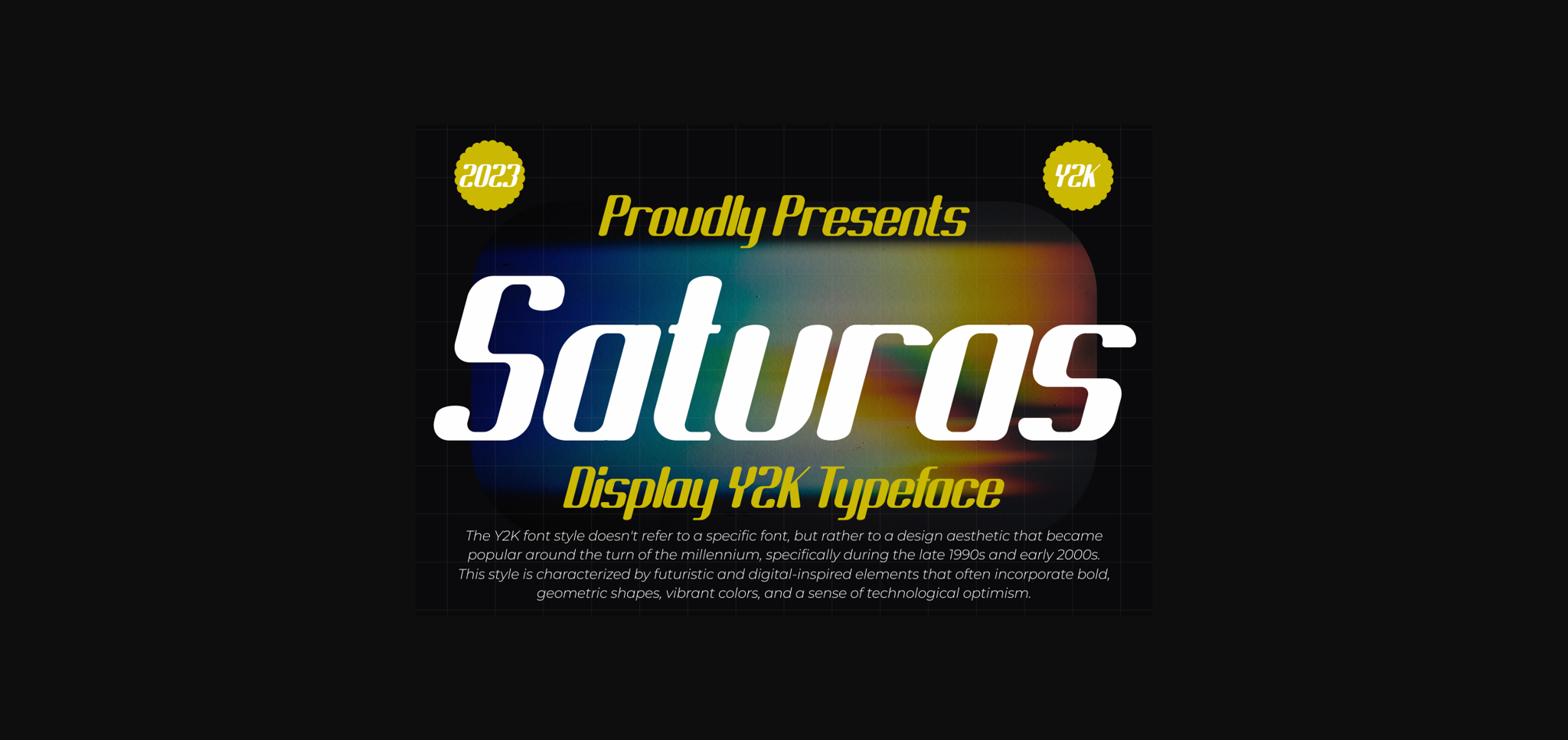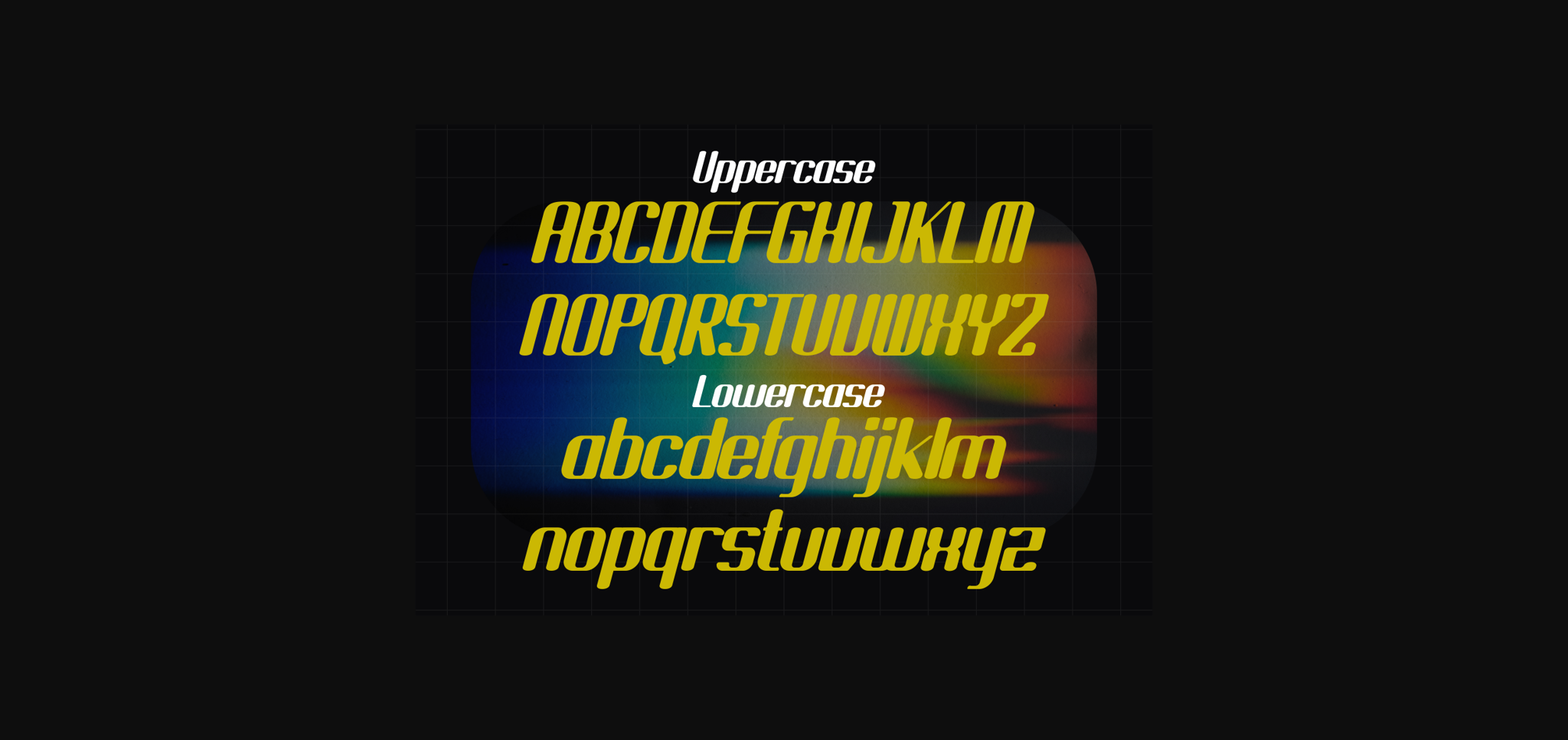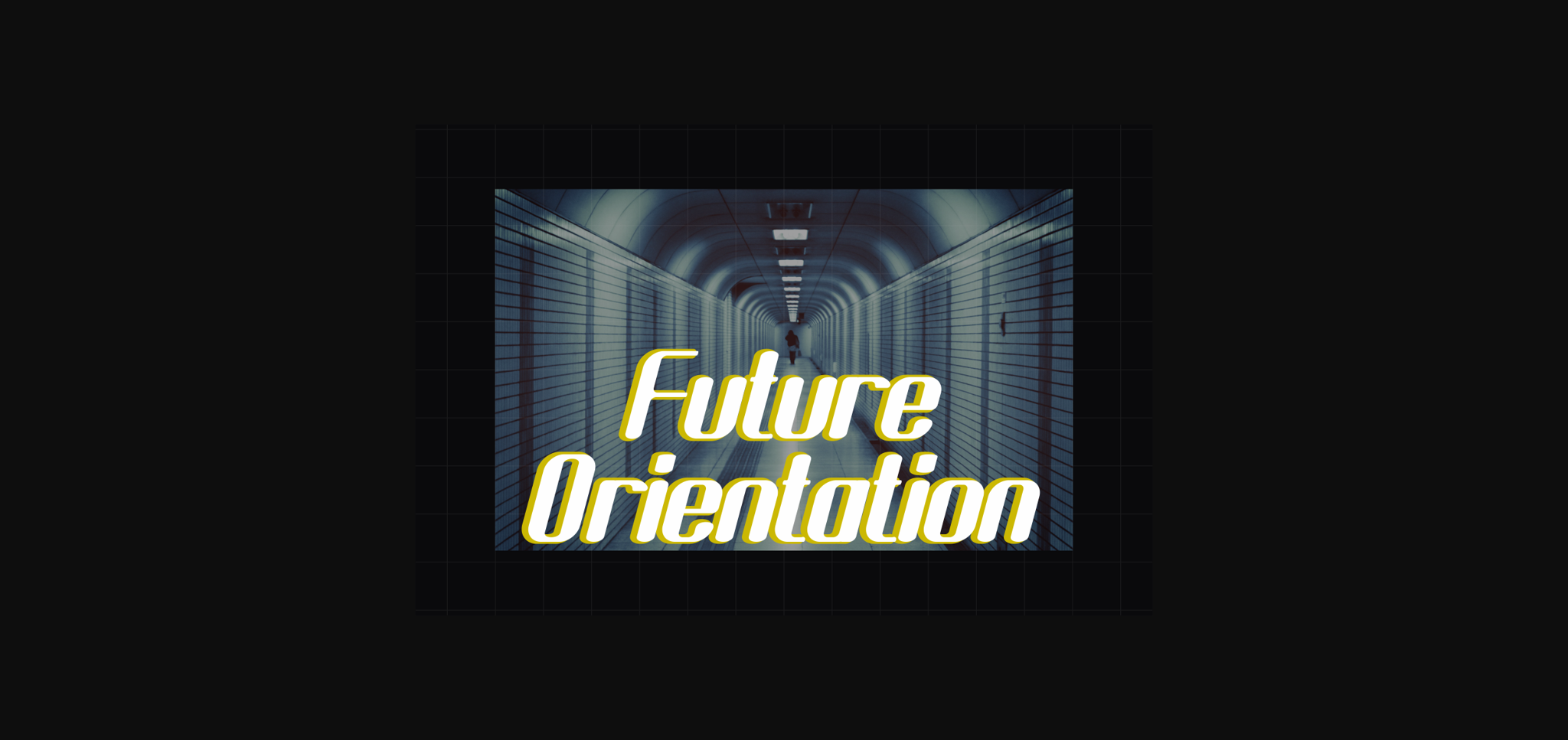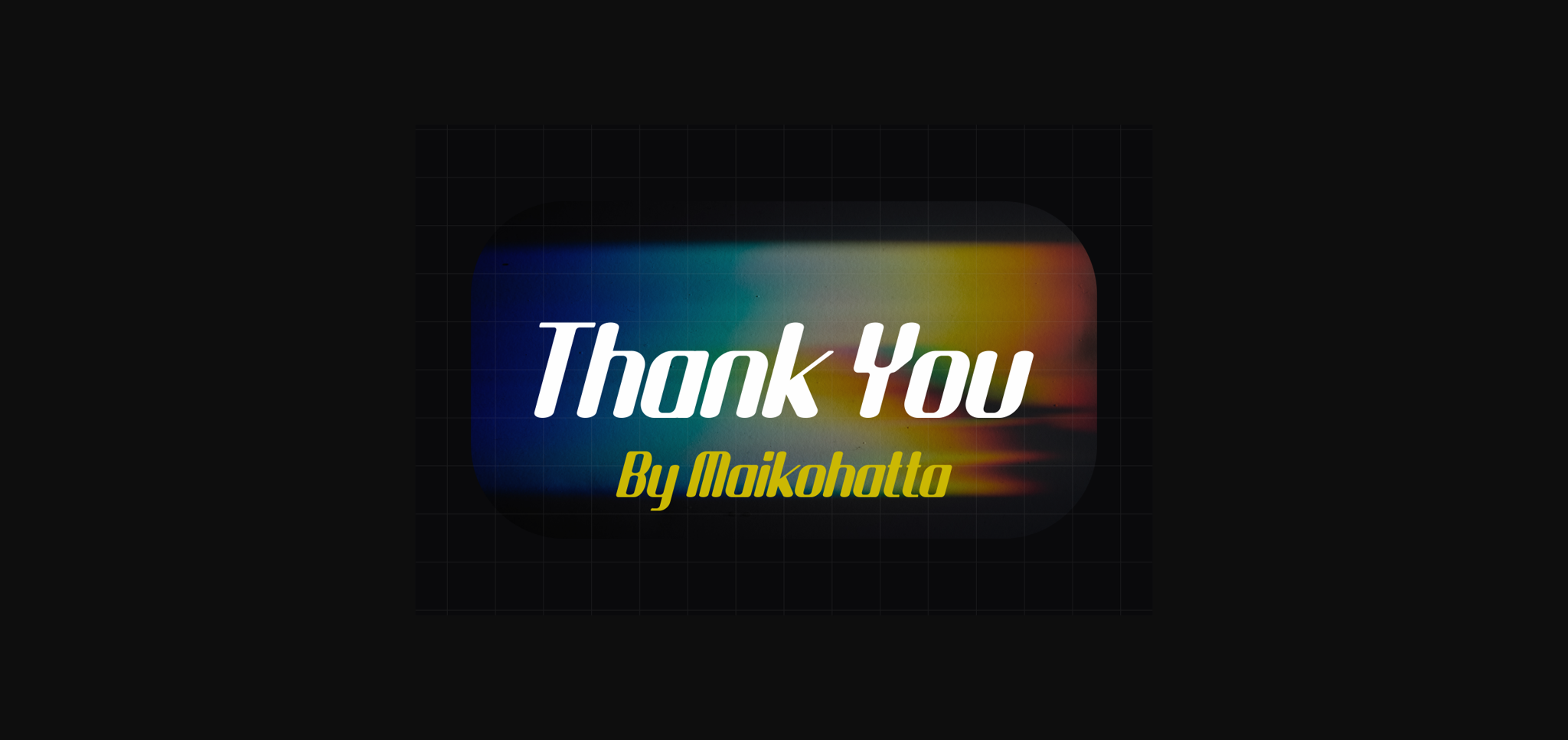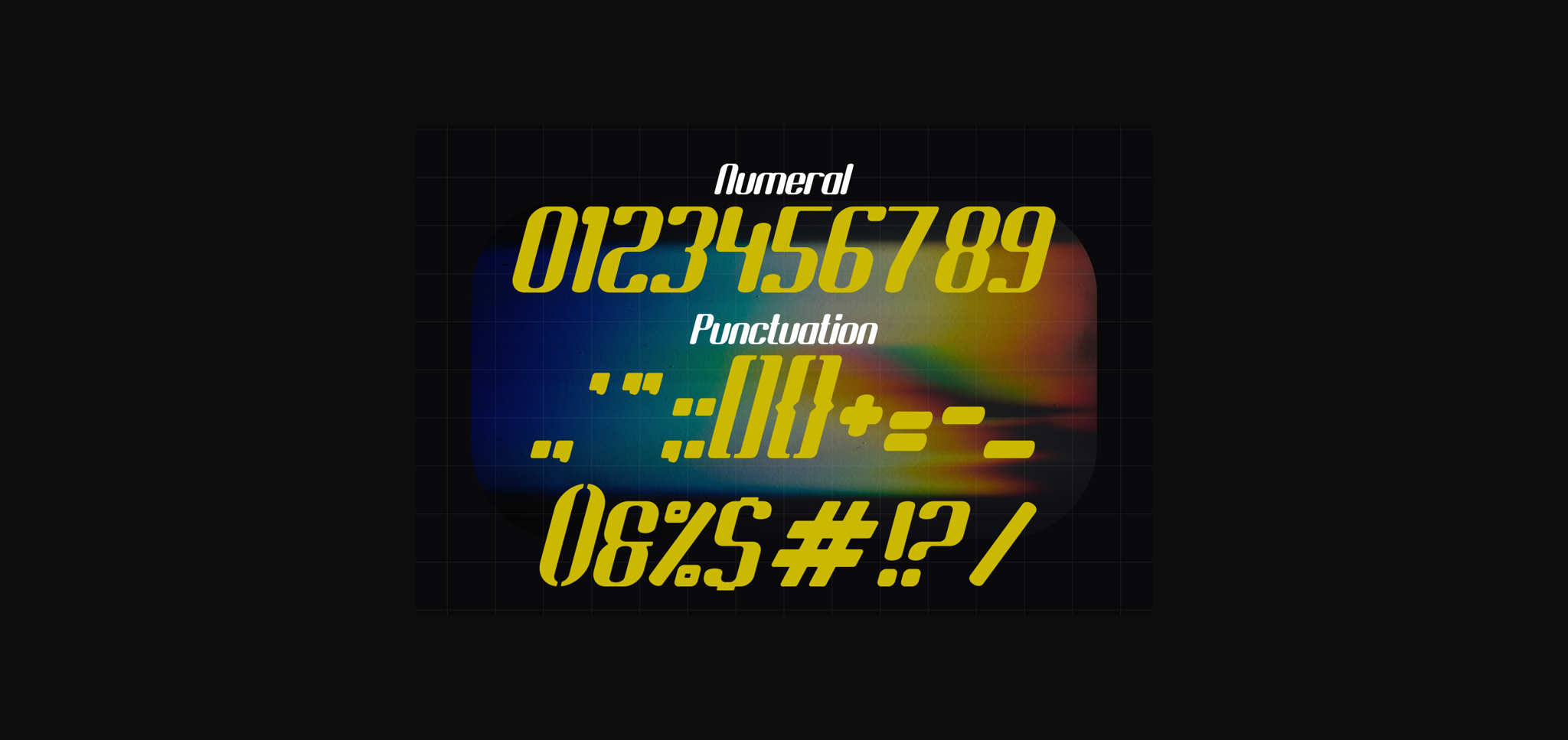
About Saturas Font
This Font is a visual representation of the Y2K (2000) aesthetic featuring futuristic style, technology, and digital elements from the early 2000’s. This font incorporates elements such as old computer displays, pixels, neon, and geometric shapes that are reminiscent of the technological developments of the time.